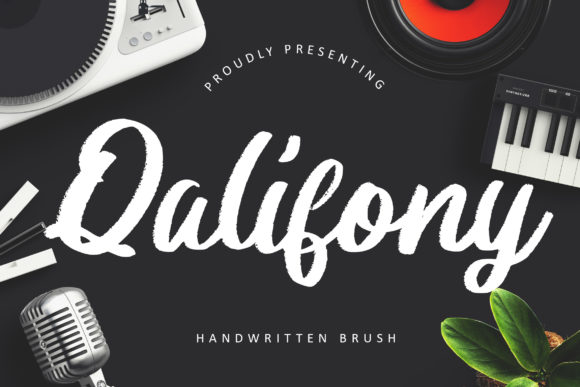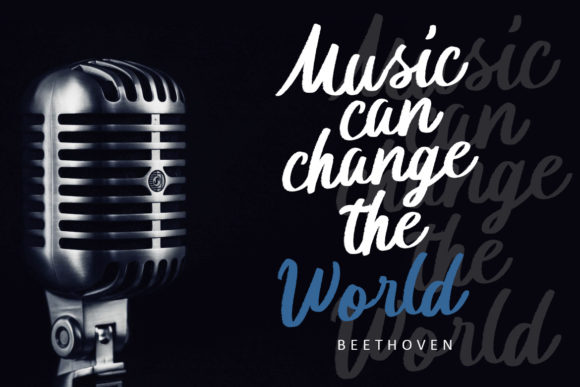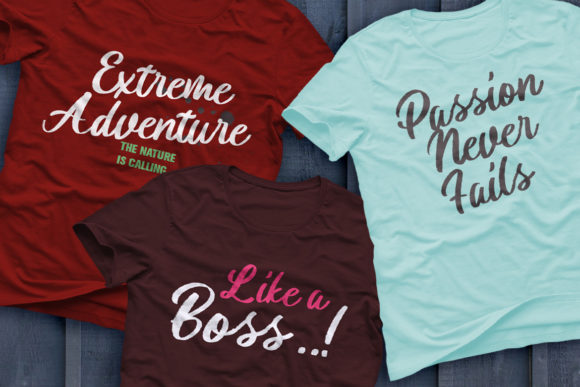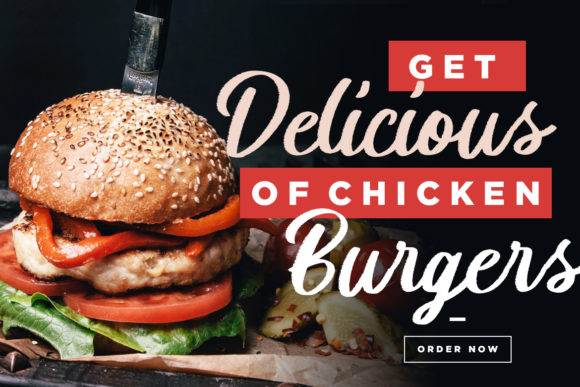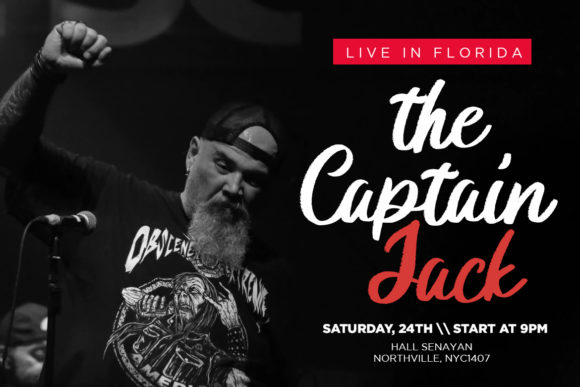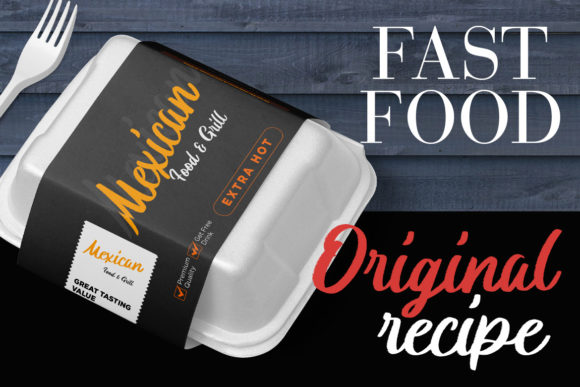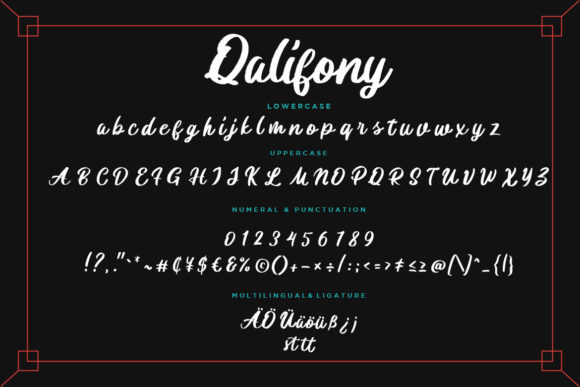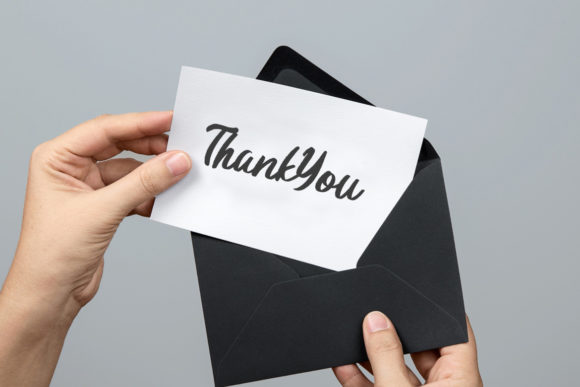
Qalifony Font
About Qalifony Font
Qalifony is handwritten brush script with natural shape that is perfect for any project. Fall in love with its charming look & feel!